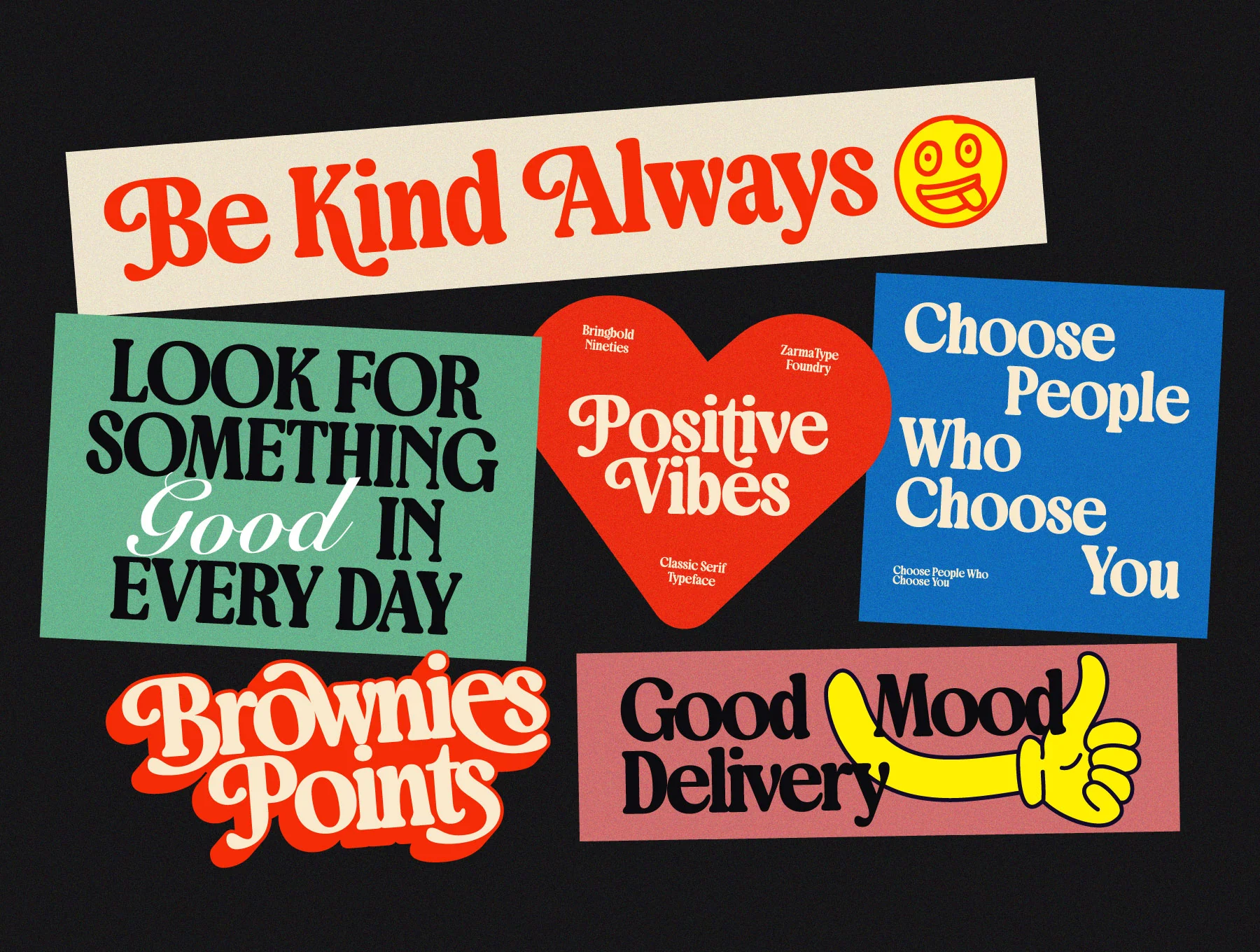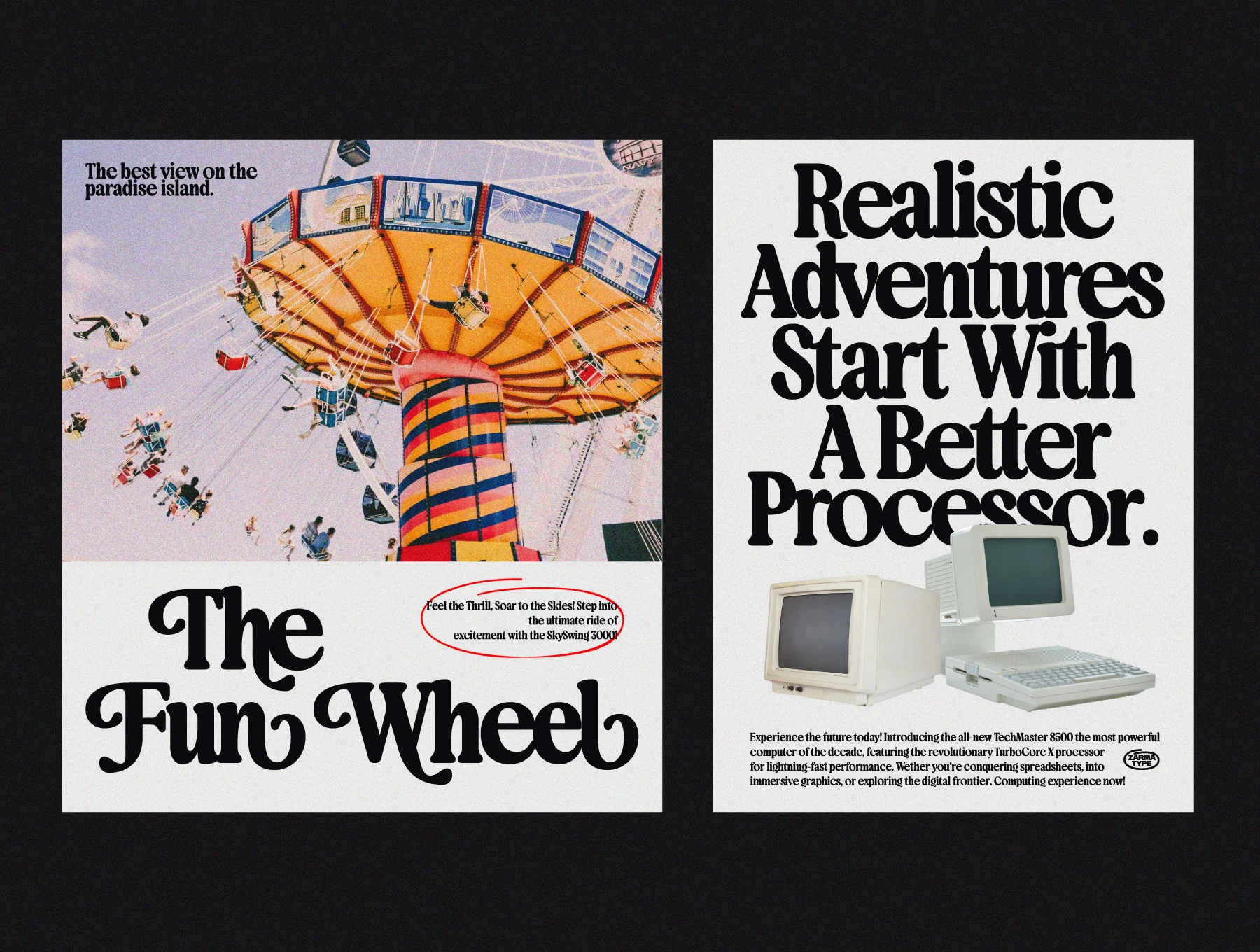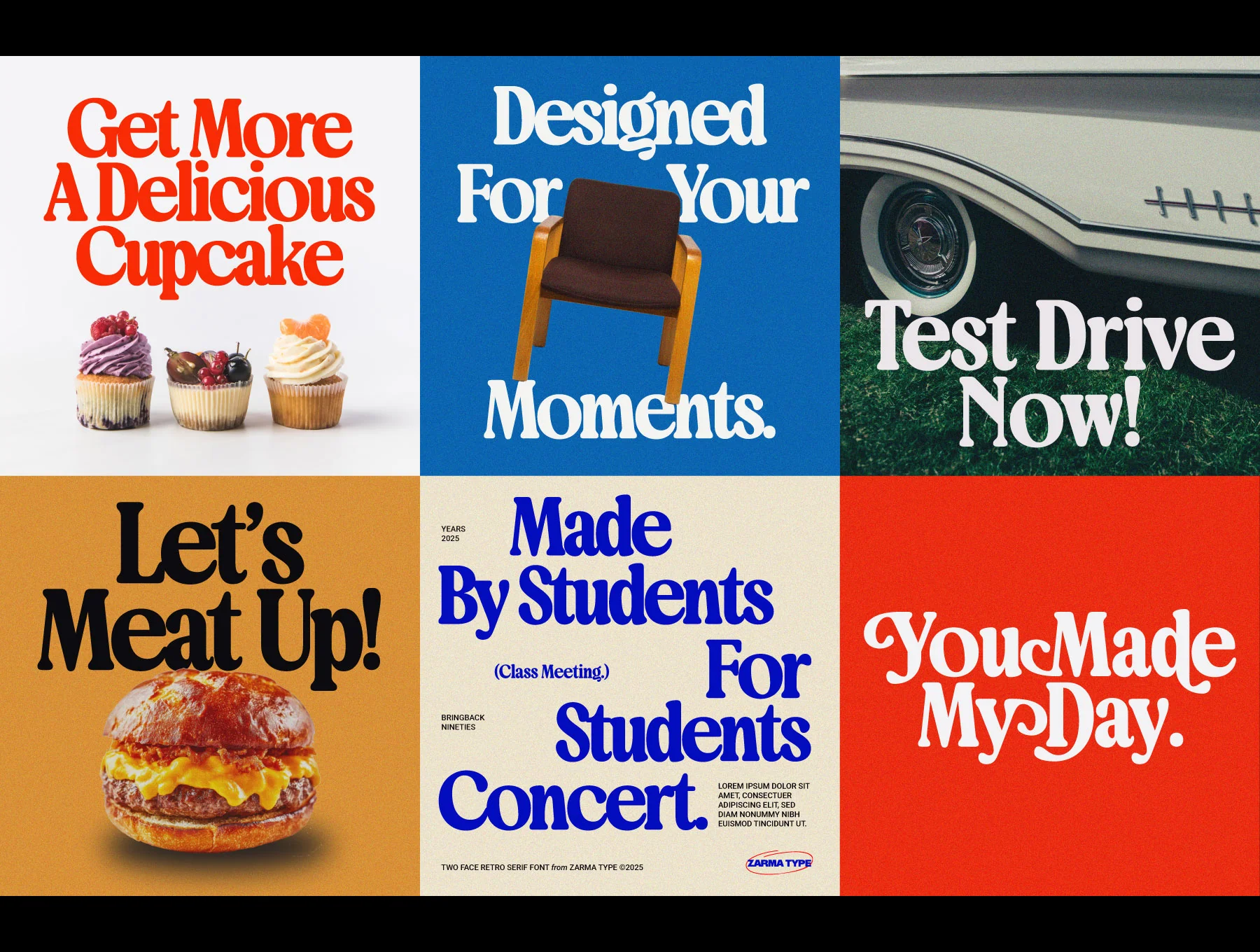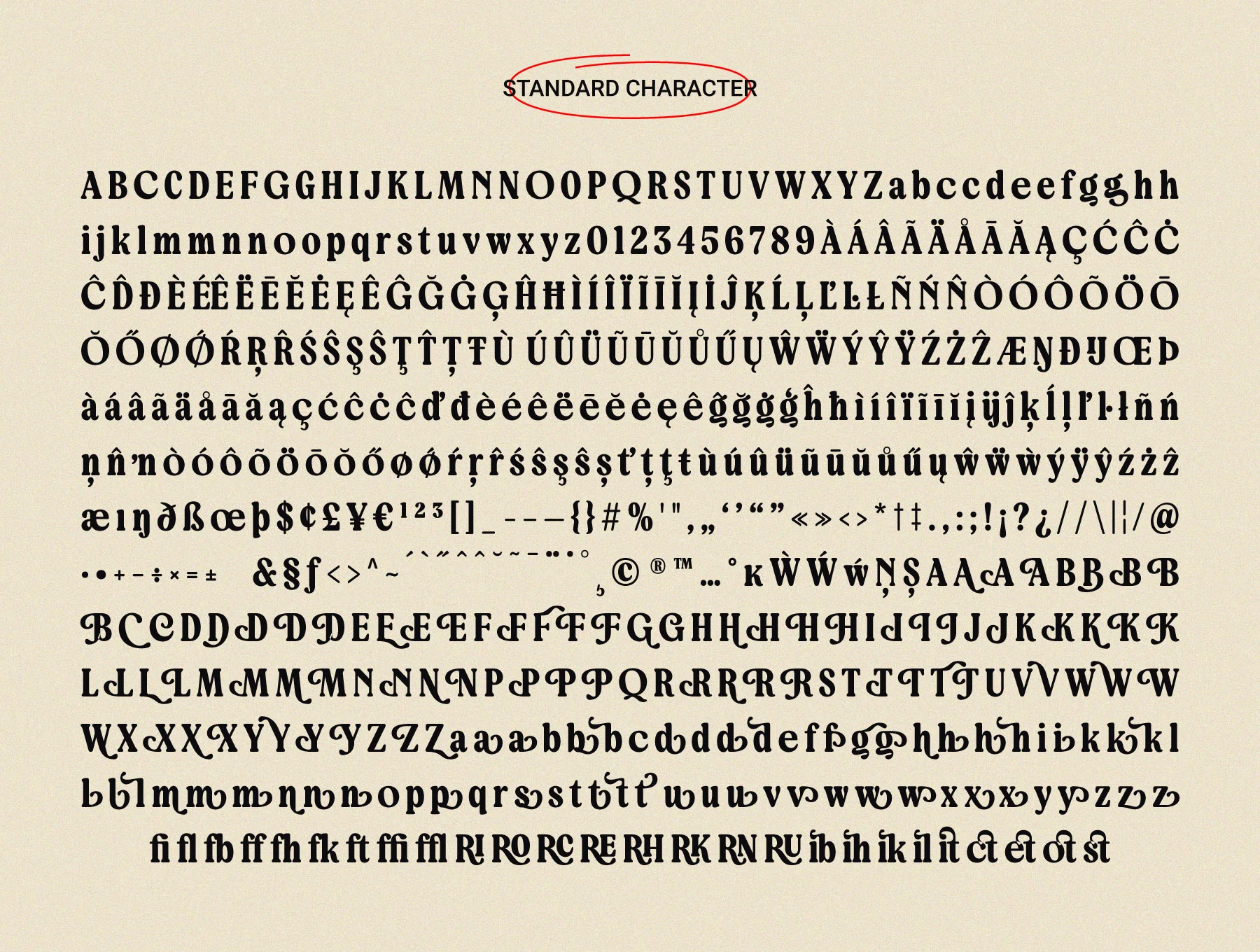
Bringbold Nineties - Serif Font
Timeless Serif with ’90s Spirit
Two font styles: upright and oblique
Support for multiple languages
Essential and optional ligature sets
Alternate stylistic characters
Bringbold Nineties is a bold serif typeface inspired by 90s style and refined for today. It includes Regular and Slanted cuts, OpenType alternates, swashes, contextual forms, ligatures, multilingual support, PUA glyphs, precise kerning, and full punctuation—ideal for retro logos, packaging, headlines, album art, posters, dining brands, and fashion labels.